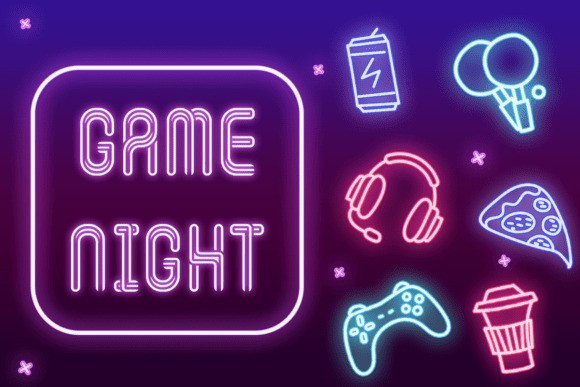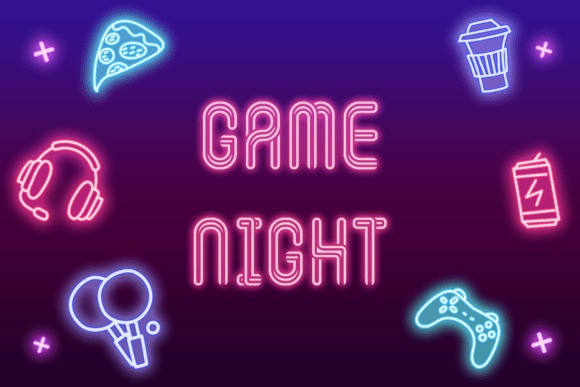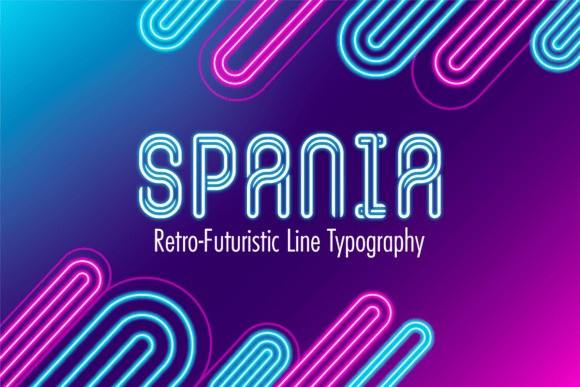
Spania Display Font is a modern retro-inspired display font featuring unique double-line strokes that resemble flowing pipes or neon tubes. With its bold geometric curves and futuristic style, this font brings a perfect balance of vintage charm and contemporary edge. Ideal for logos, posters, album covers, fashion branding, and digital artwork, Spania adds a striking visual statement to any project.
Its clean yet playful aesthetic makes it especially suitable for tech designs, music festival graphics, retro-themed products, and creative typography explorations.
Make your designs stand out with Spania font – a typeface that combines retro vibes with modern minimalism.